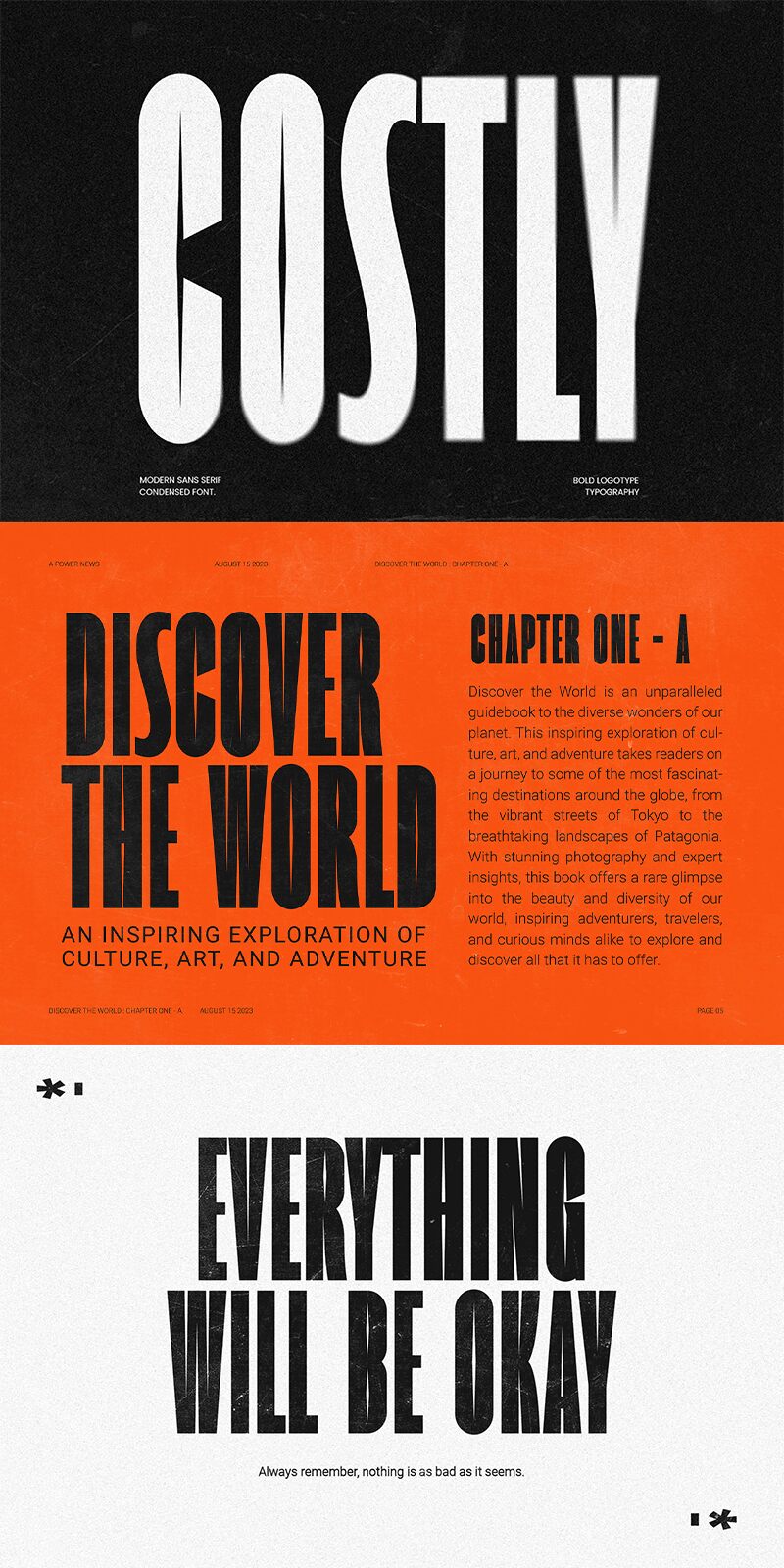
Costly font by Graphicxell is a free sans serif display font with a modern assertive style. Its condensed tall letters immediately grab the attention of viewers, which makes it a useful tool in different modern and contemporary design projects. This sleek urban font has a calm and confident character, making it effective both in short paragraphs or as a large-title font.
Costly is modern in every sense, and it fits perfectly in applications for advertising and branding. Use it to make stylish magazines, print and packaging designs, UI designs, posters, and social media posts. Website header titles and logotypes are also possible suggested uses.